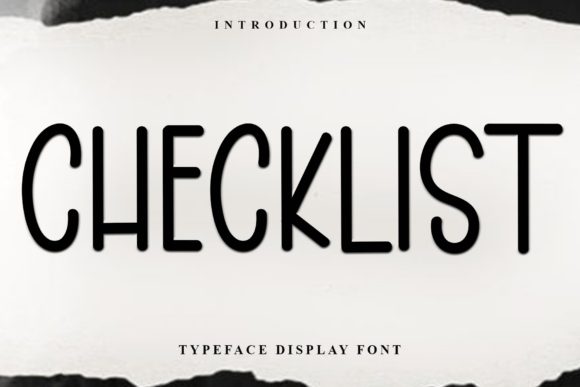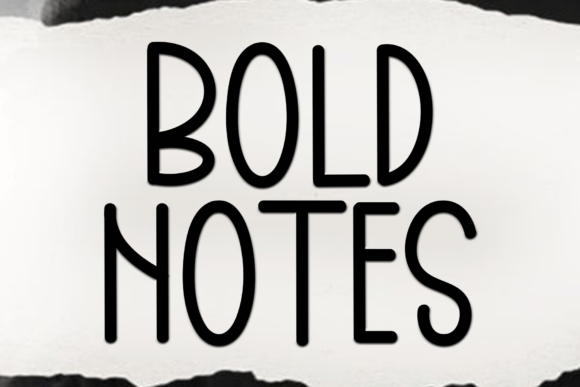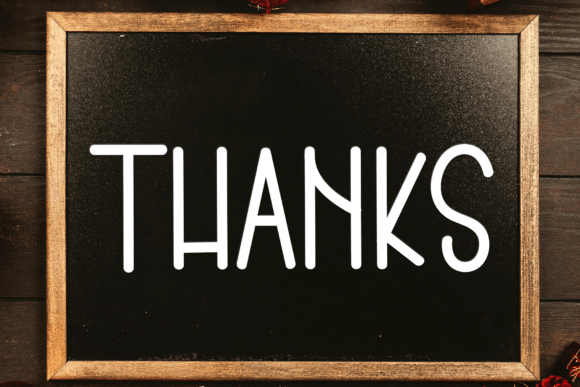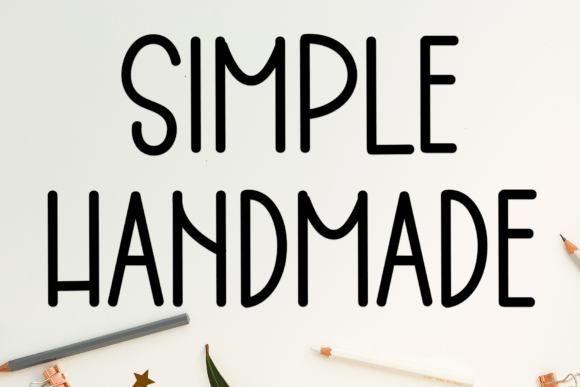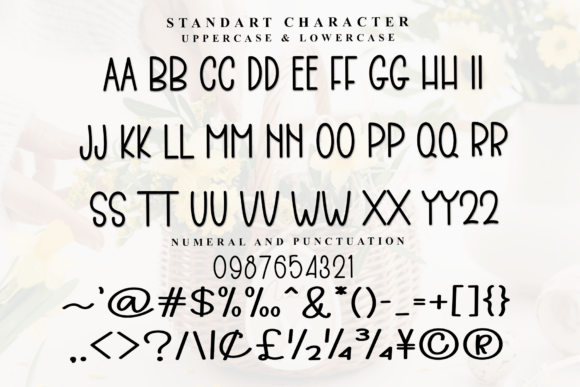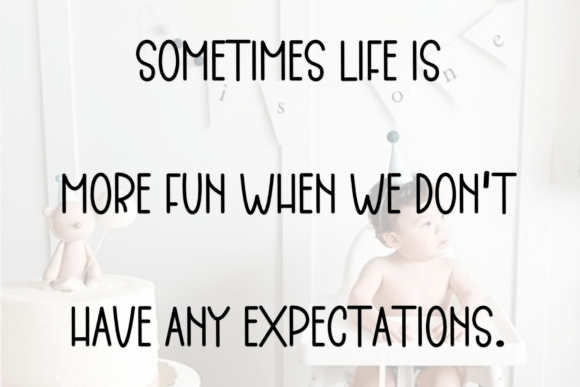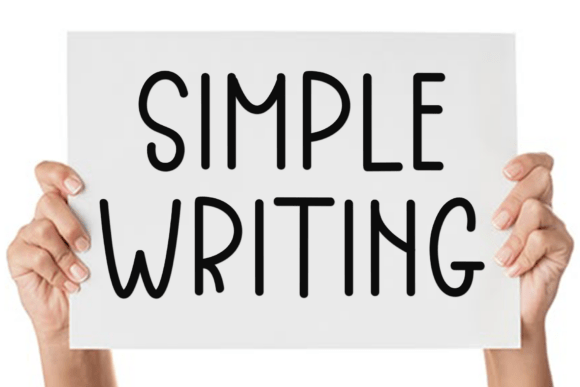
Discover the Perfect Companion for Your Creative Projects
Have you ever been brainstorming a new design, only to be stuck on the perfect font to match your vision? You’re not alone. We’ve all been there, pouring over font options, searching for that elusive combination of style and functionality. That’s why we’re excited to introduce you to Checklist Font, a beautiful and eye-catching font designed to bring your creative ideas to life.
With its soft, unique touch and distinctive strokes, Checklist Font is the perfect addition to any design project. Whether you’re crafting a logo, creating a brochure, or designing a website, this versatile font is sure to impress. Its compatibility with Windows and open-source platforms makes it a valuable tool for designers of all levels, and its natural style will enhance your designs, making them appealing to a wide range of audiences.
Key Features of Checklist Font
- Font Family: Checklist Font is a custom-designed font family with multiple styles, including Checklist Bold, Checklist Regular, and Checklist Light.
- Unique Characteristics: Checklist Font features a distinctive checkbox design, making it ideal for creating checklists, to-do lists, and other applications where a checkbox is necessary.
Designer Review: Checklist Font
Overall, I’m impressed with Checklist Font’s modern aesthetic and clean lines. ✨ The font’s simplicity makes it perfect for creating checklists, forms, and other interactive elements. It’s also highly legible, even at small font sizes. ✨ The font’s versatility allows it to work well in both digital and print applications.
One of the standout features of Checklist Font is its wide range of customization options. ✨ You can adjust the font’s weight, style, and size to suit your design needs. Additionally, the font includes a variety of glyphs and symbols that can be used to create checklists and other interactive elements.
- ⚠️ Limited character set: While Checklist Font includes a wide range of glyphs and symbols, it may not include some of the more exotic characters you need for certain languages or applications.
- ⚠️ Not suitable for body text: Due to its simplicity and lack of serif, Checklist Font may not be the best choice for body text or long blocks of text.
Overall, Checklist Font is a solid choice for designers looking to create clean, modern checklists and forms. While it has some limitations, its versatility and customization options make it a valuable addition to any designer’s toolkit.
Tips for Getting the Most Out of the Checklist Font
Use the Checklist Font to create visually appealing and easy-to-read checklists, to-do lists, and other types of text-based content. You can also use it to add a touch of professionalism to your designs.
The Checklist Font is ideal for:
- Creating to-do lists and checklists.
- Designing infographics and visual aids.
- Adding a touch of professionalism to presentations and documents.
Alternatives to Checklist Font for Designers
Lato is a popular sans-serif font that works well for body text and is often used in digital design. It’s a great alternative to Checklist Font when you need a clean and modern look. Lato is more versatile and can be used for headings and body text, whereas Checklist Font is specifically designed for checklists.
Montserrat is a sans-serif font that originated in Argentina and has become a favorite among designers. It’s similar to Checklist Font in its clean and modern aesthetic, but it’s more suitable for headings and titles. Use Montserrat when you need a bold and eye-catching font to draw attention to important information.
Open Sans is a highly readable sans-serif font that’s widely used in digital design. It’s a great alternative to Checklist Font when you need a font that’s easy to read and works well for body text. Open Sans is more versatile than Checklist Font and can be used for a variety of applications, from web design to print materials.